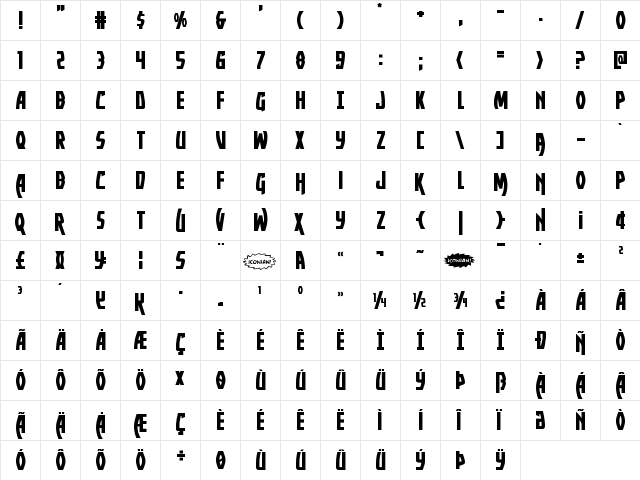
Yankee Clipper Expanded Expanded
Design Context for Yankee Clipper Expanded Typeface
Yankee Clipper Expanded is a composed and adaptable typeface that performs quietly and consistently across a wide range of design contexts.
Pro Tip: Use Yankee Clipper Expanded in both headline and body roles to test its range before committing to a single application.